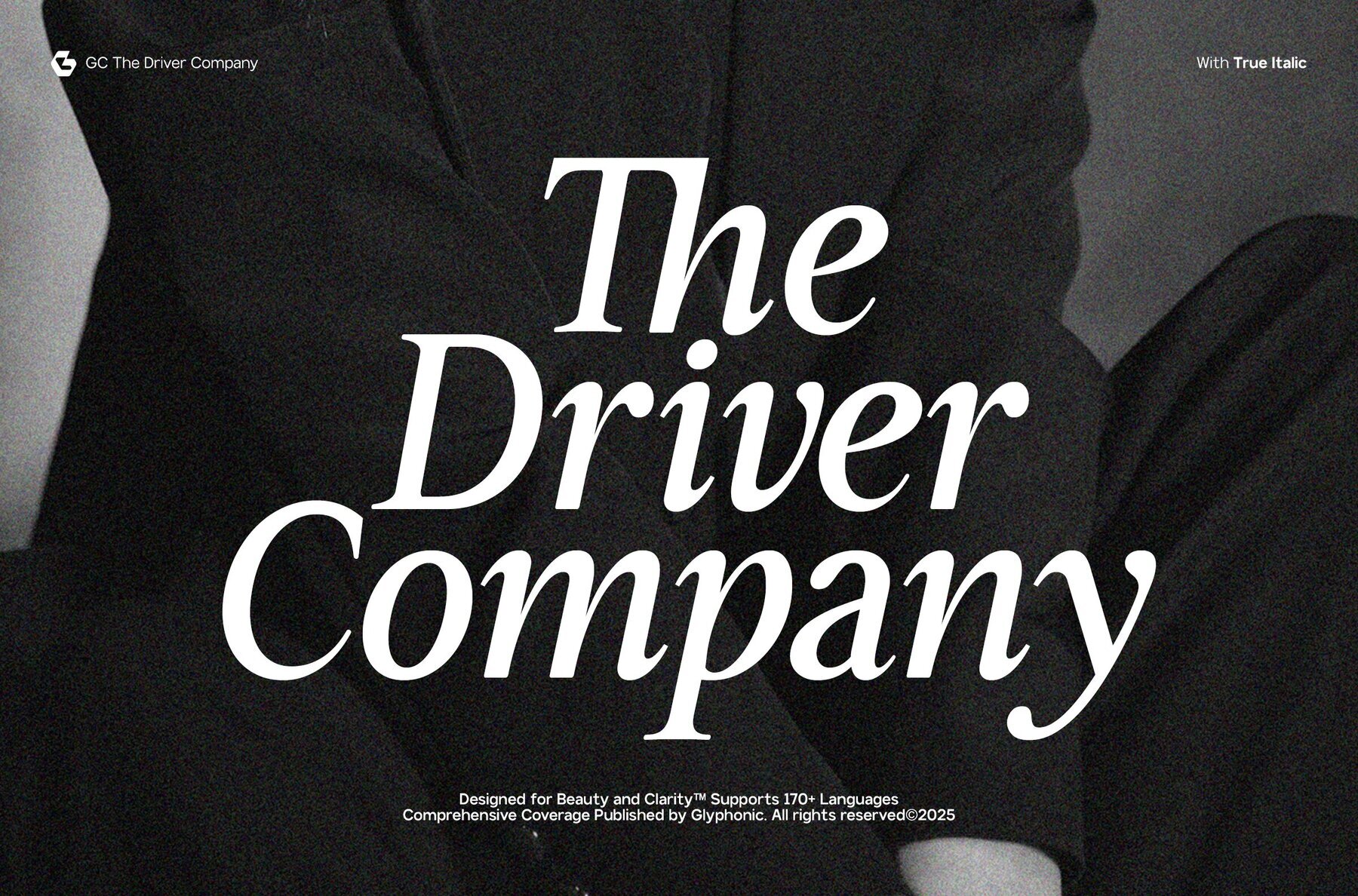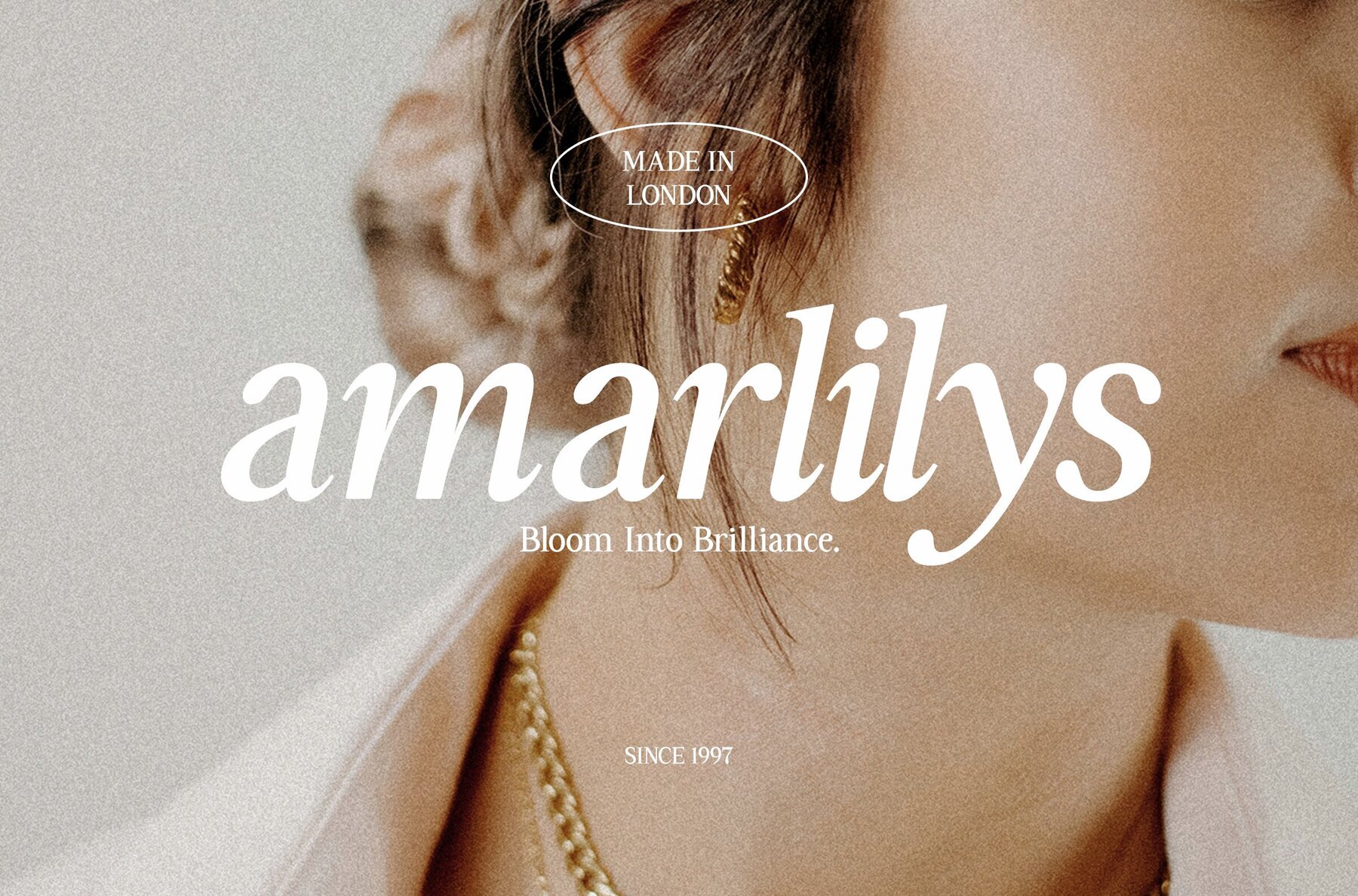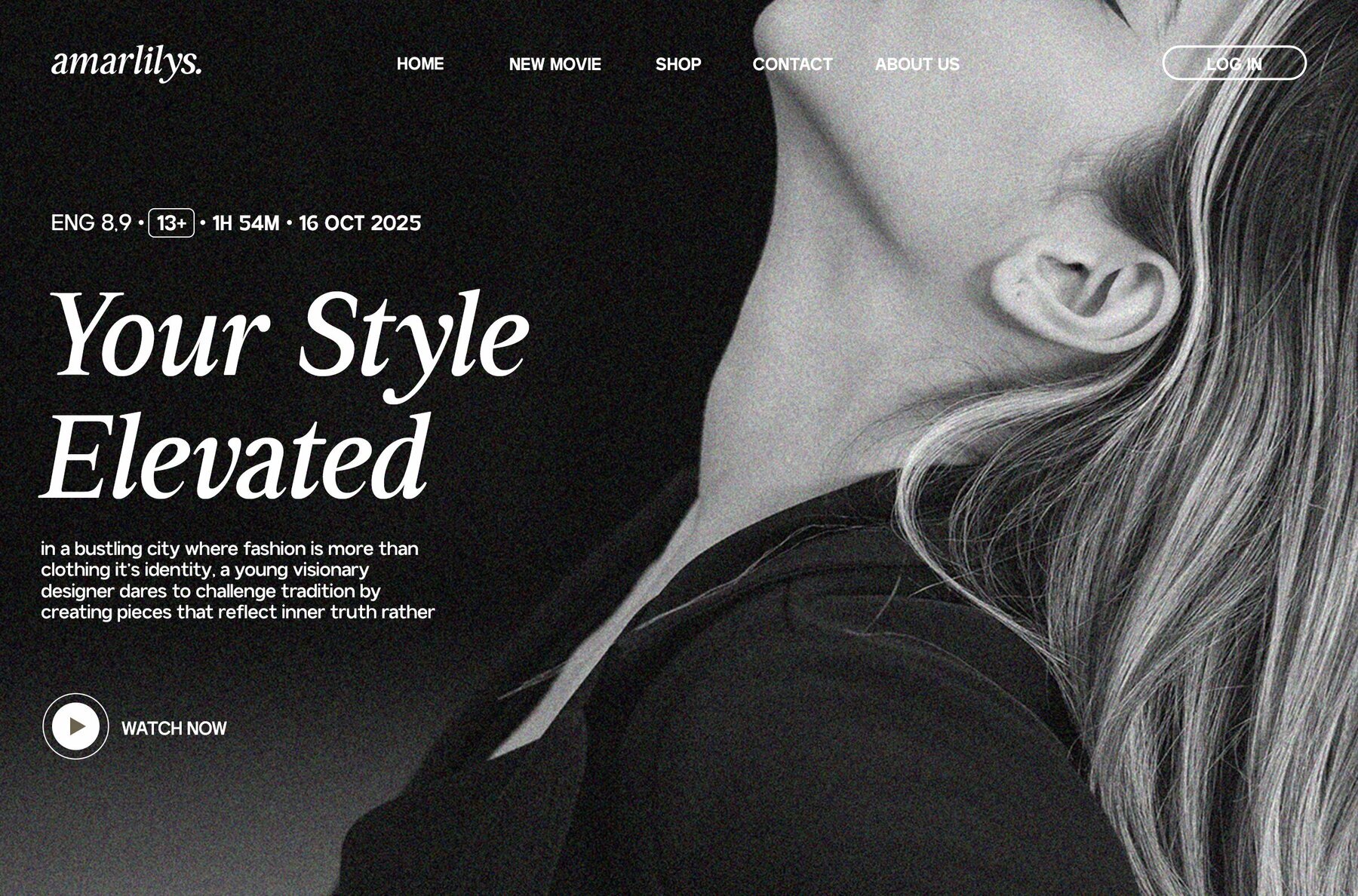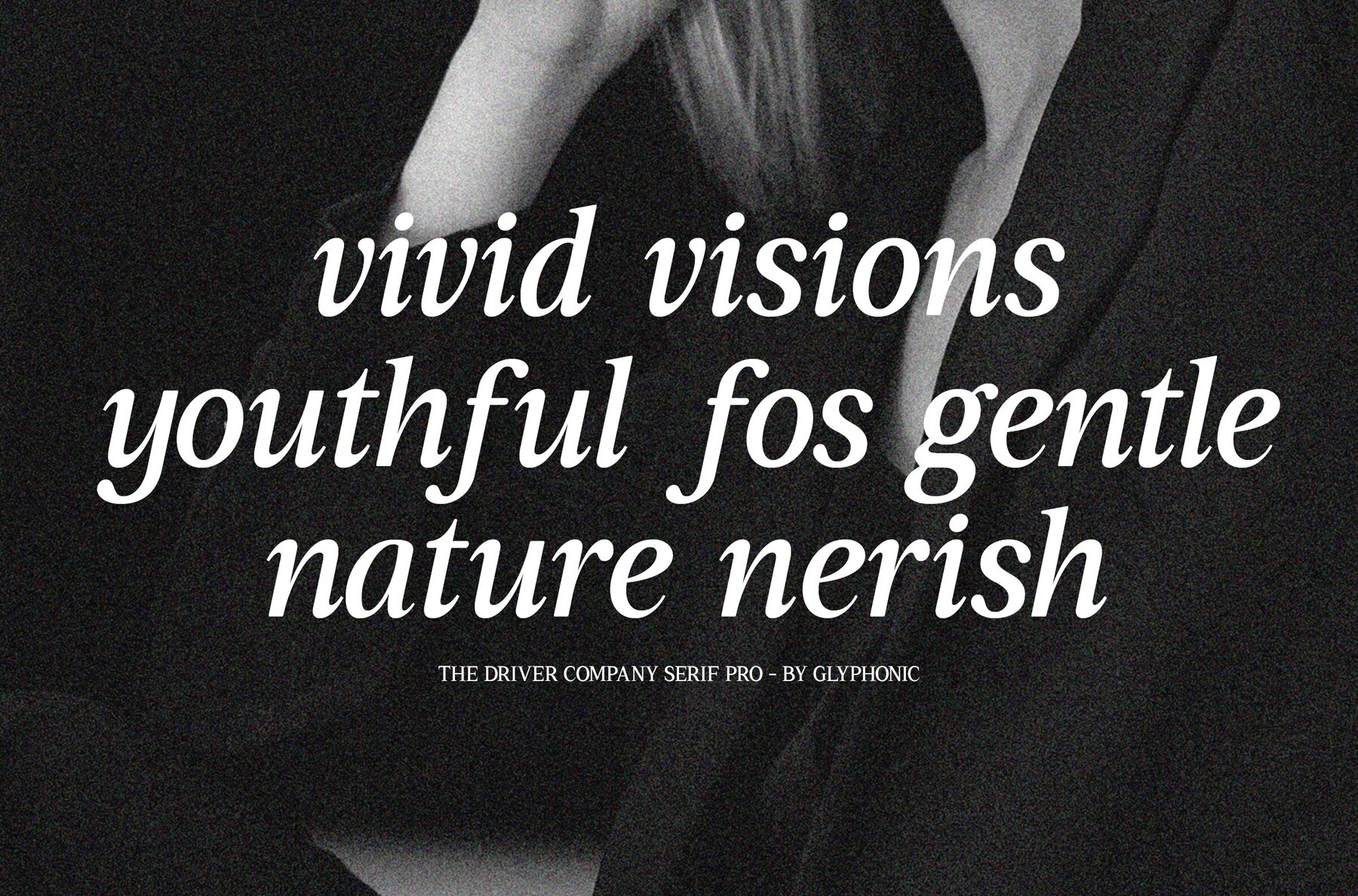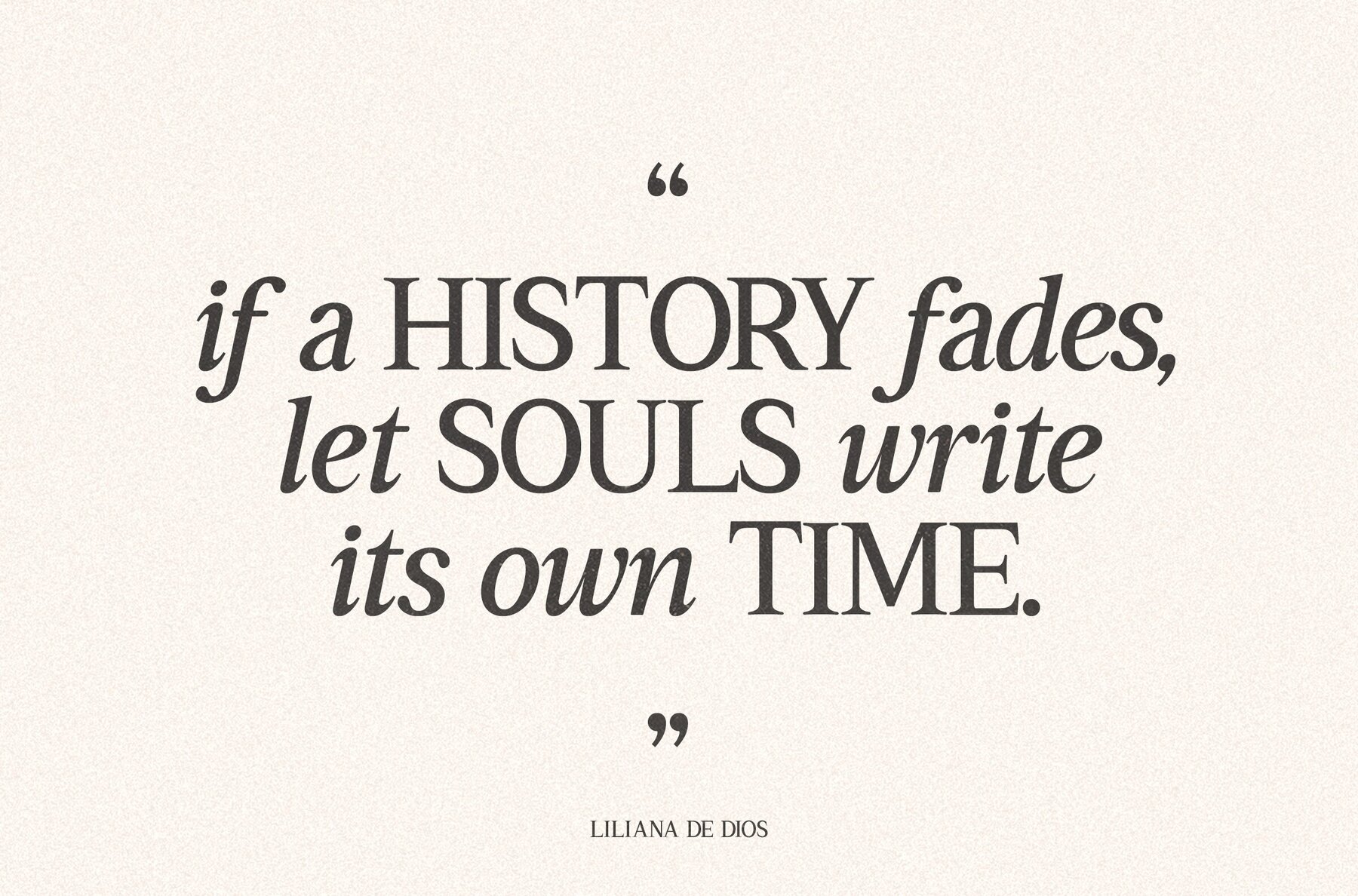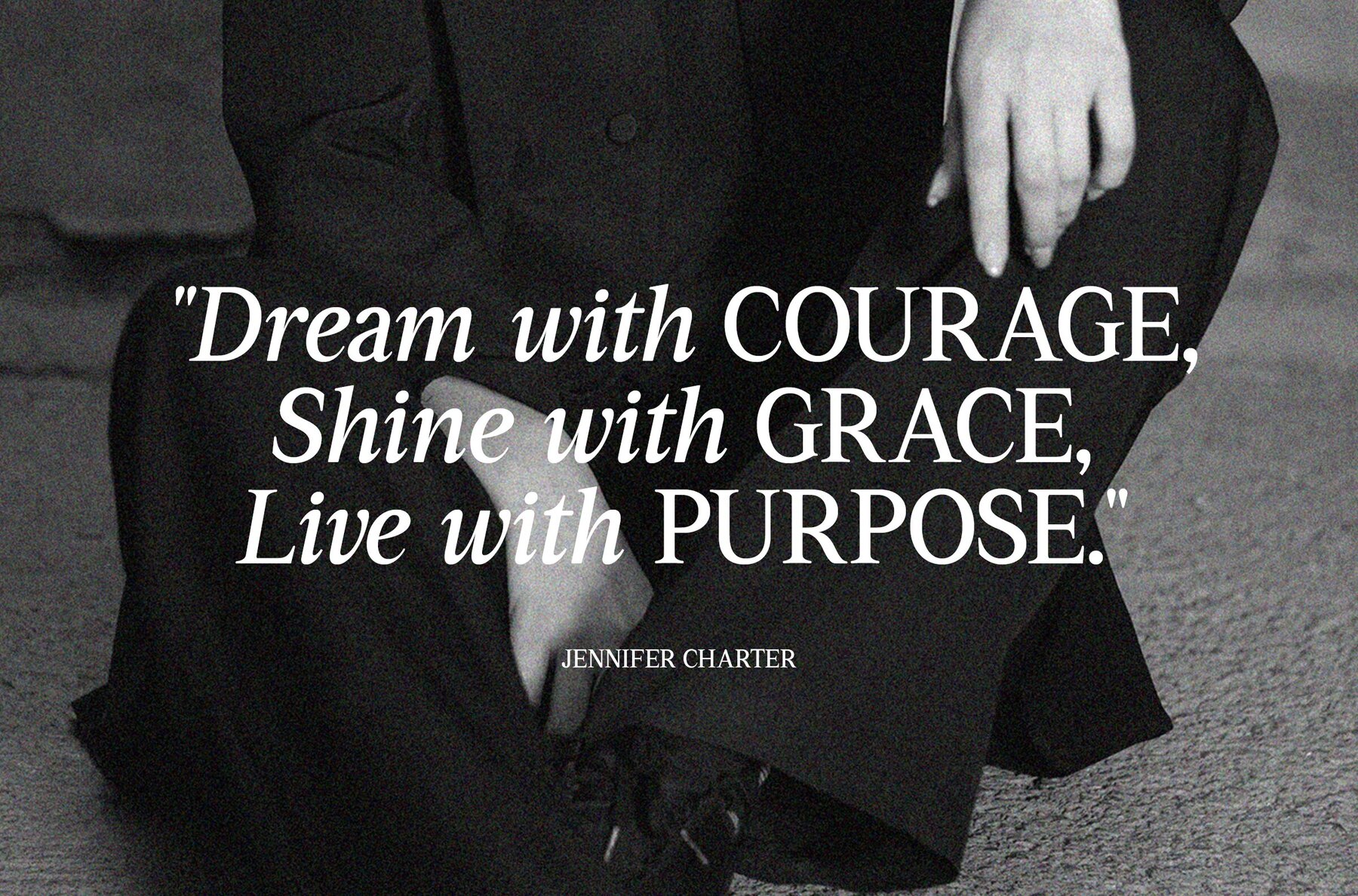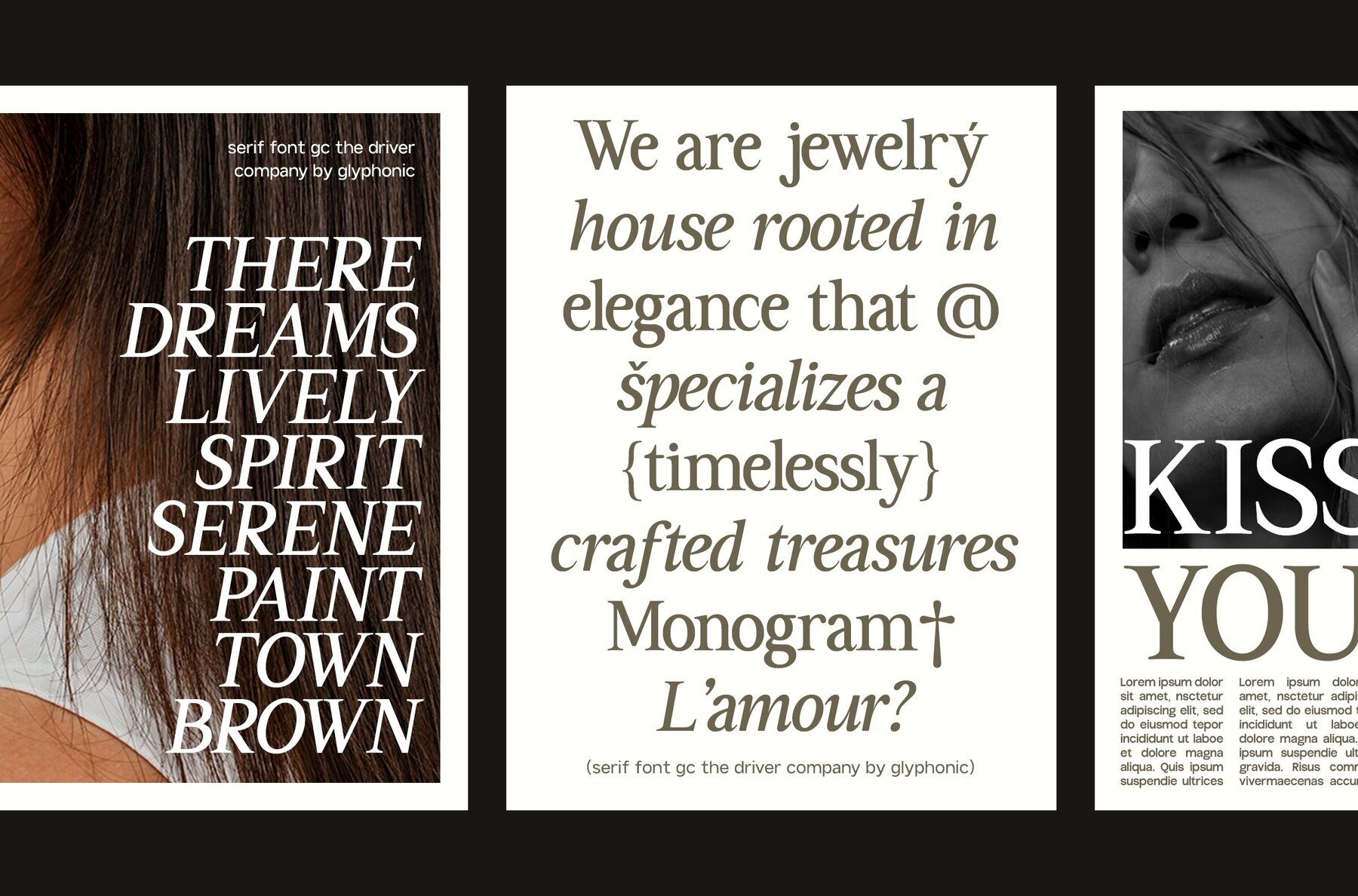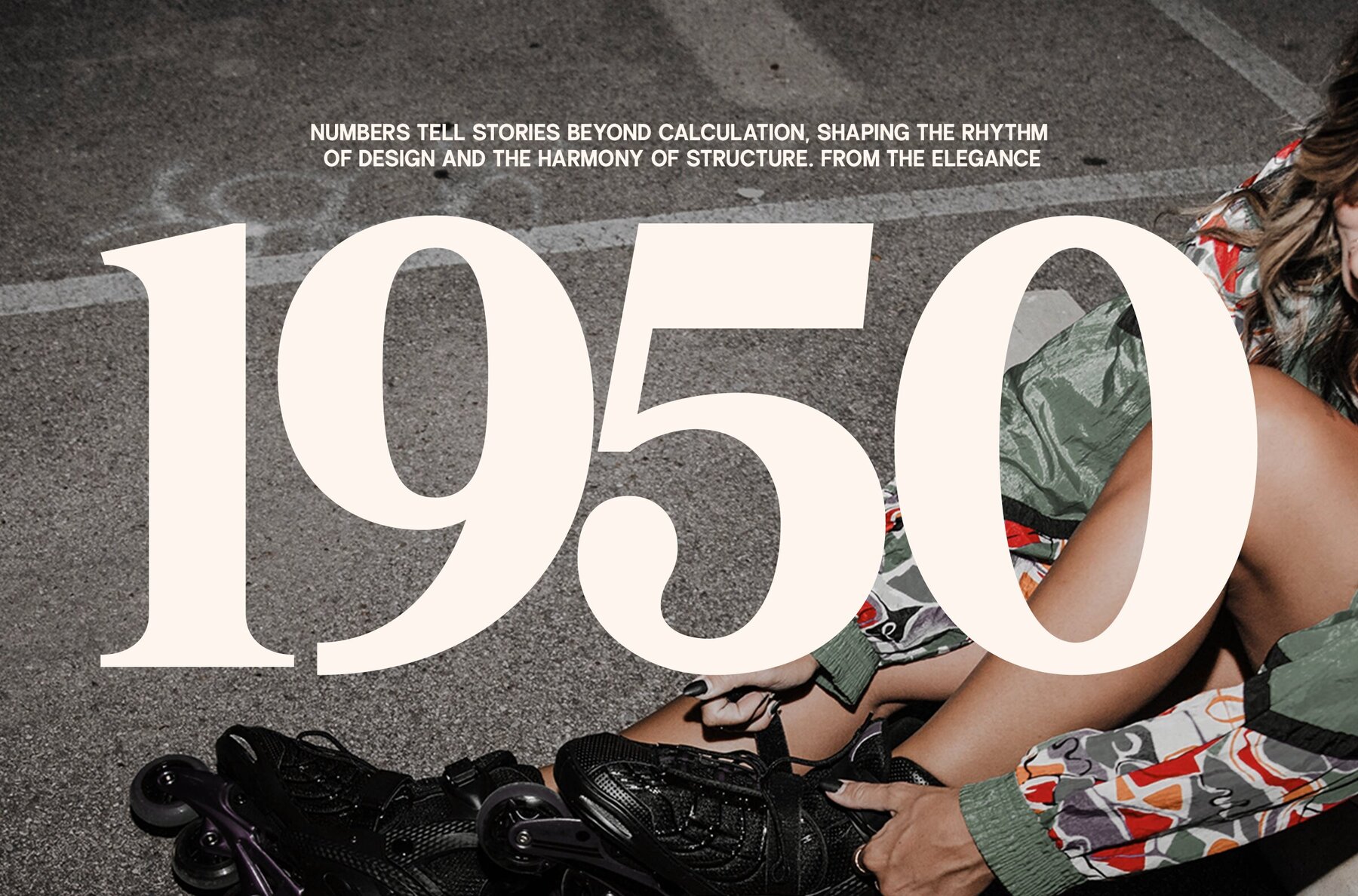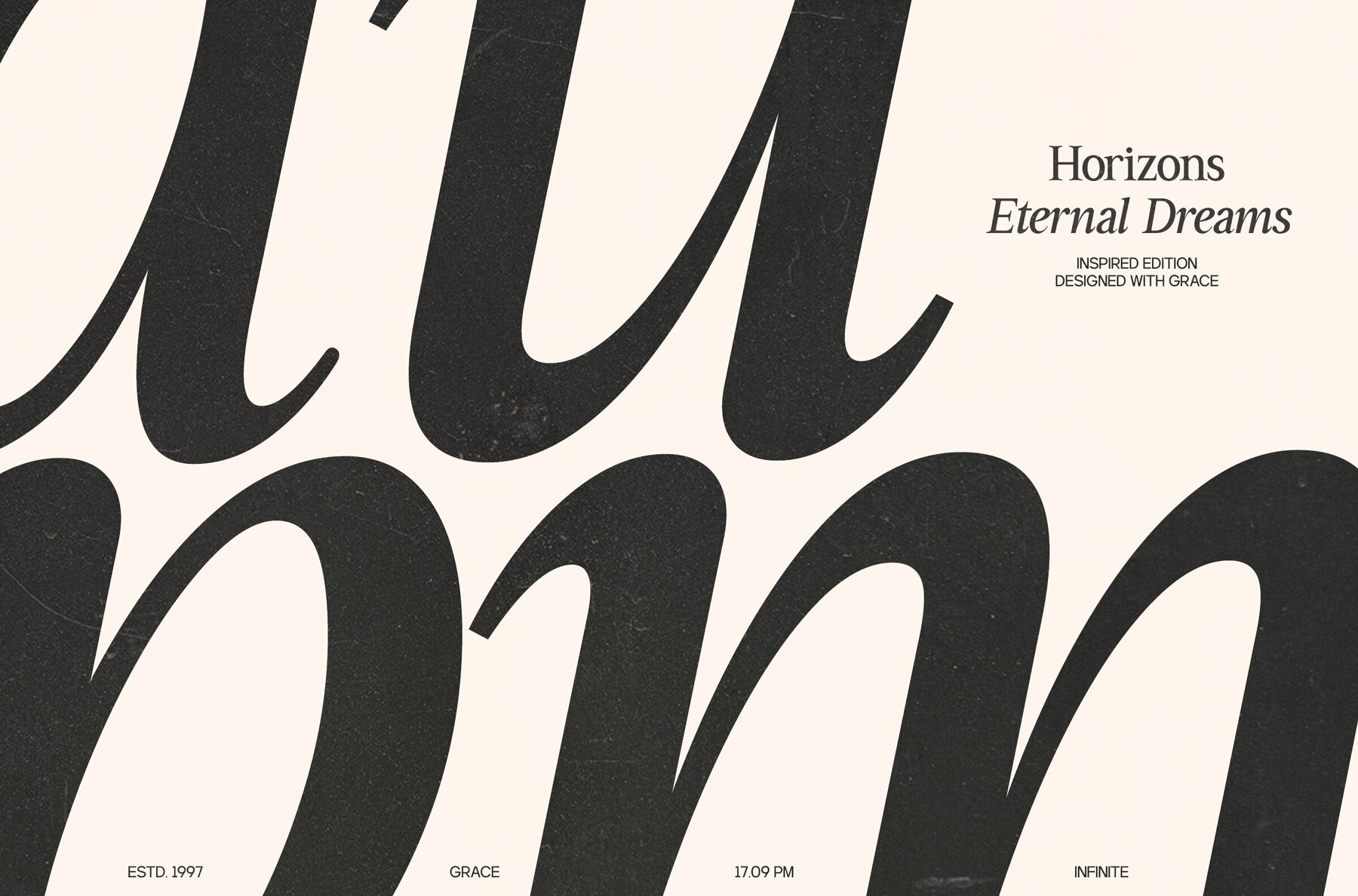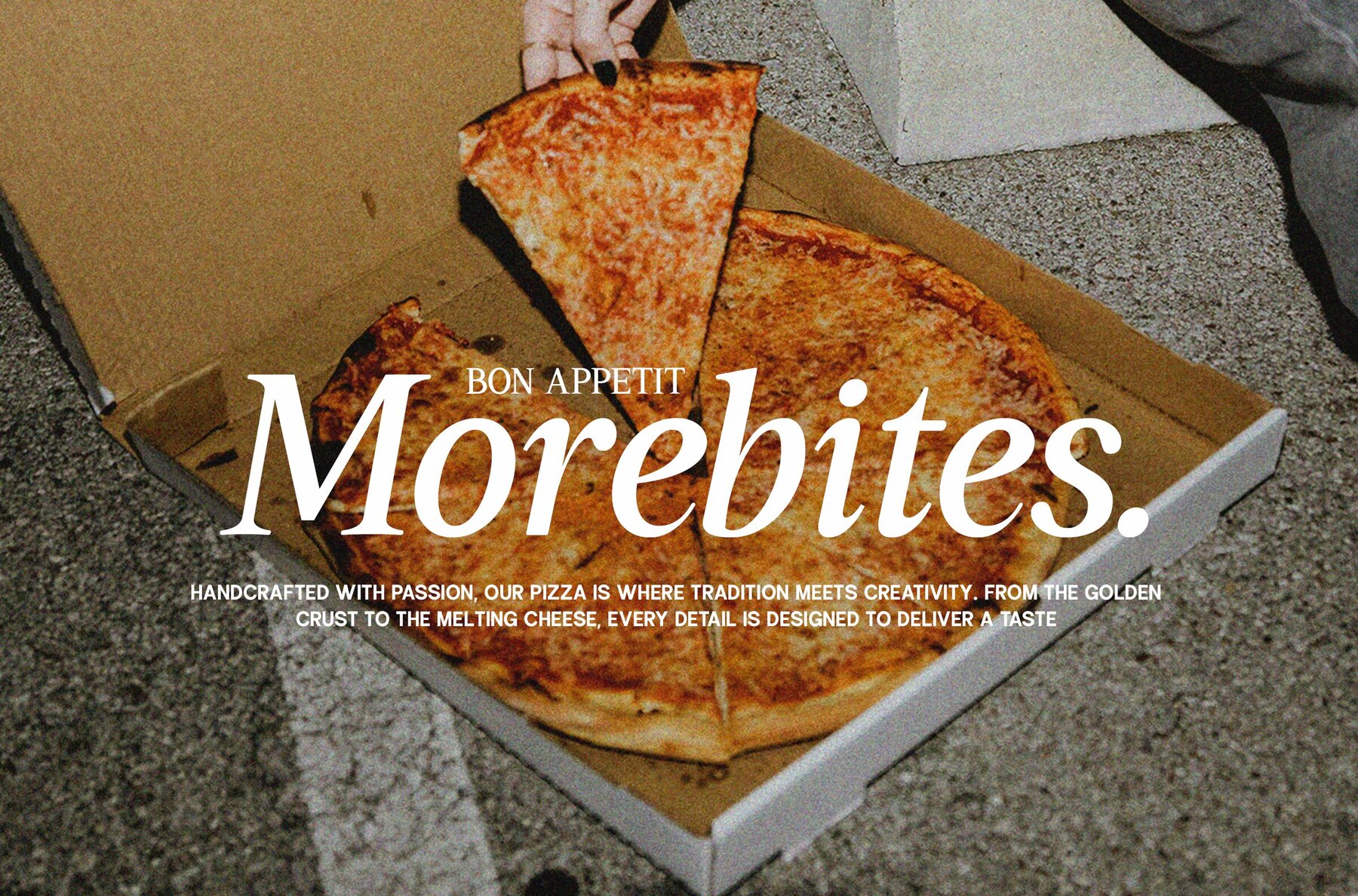
GC Driver Company Font
GC Driver Company is an italic serif typeface designed to offer sophistication, rhythm, and expressive charm. Its flowing curves and sharp serifs evoke a timeless quality, balancing the appeal of classic style with a modern sensibility. This font is ideal for editorial titles, luxury branding, packaging, and distinctive logotypes, providing each letter with a sense of personality and graceful movement. Every stroke is crafted for precision and balance, making GC Driver Company a reliable choice for creatives seeking elegance and clarity in their designs. The structured italic forms add a refined motion, ensuring that your work stands out whether in print or digital contexts.GC Driver Company – Refined Italic Serif with Lasting Elegance